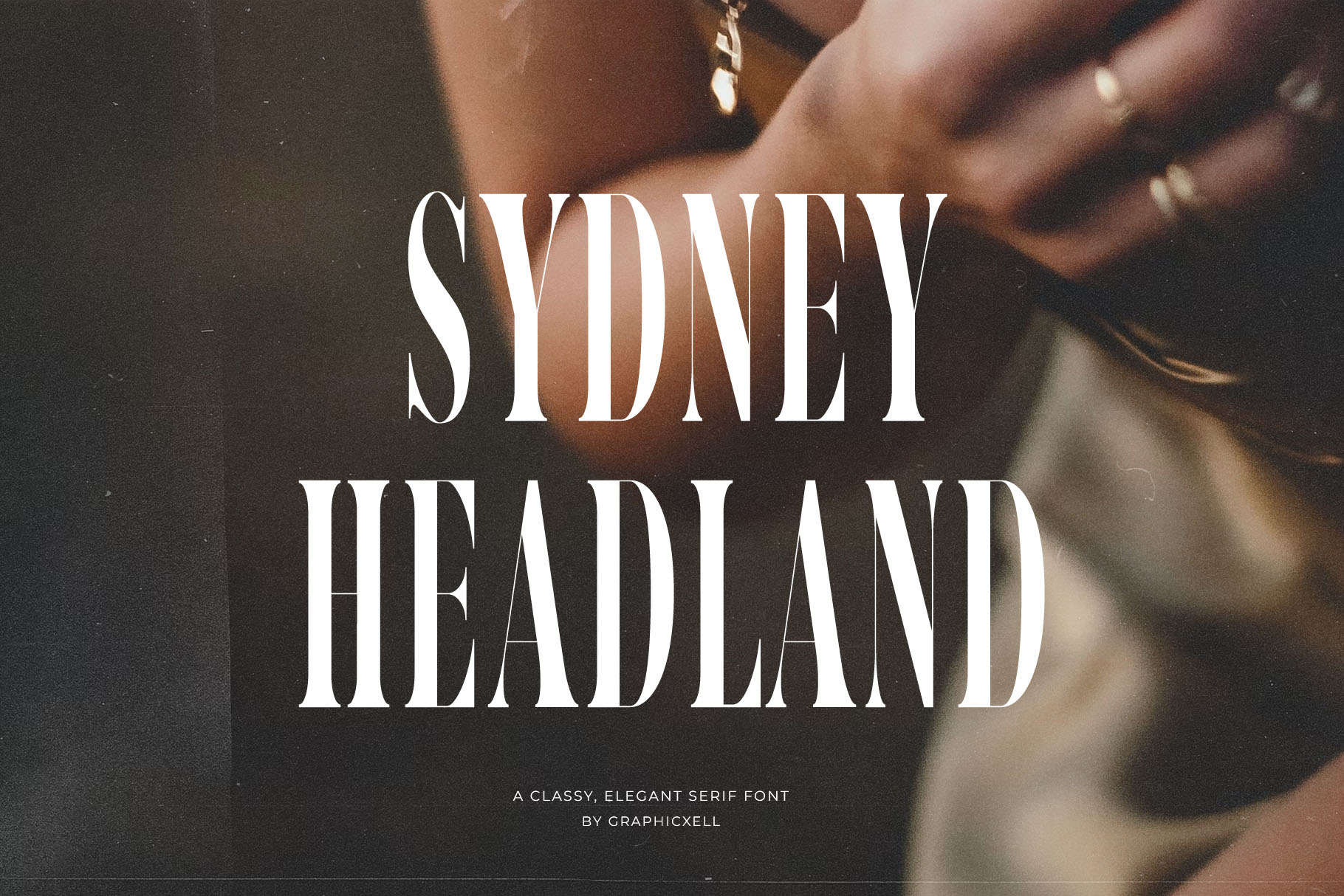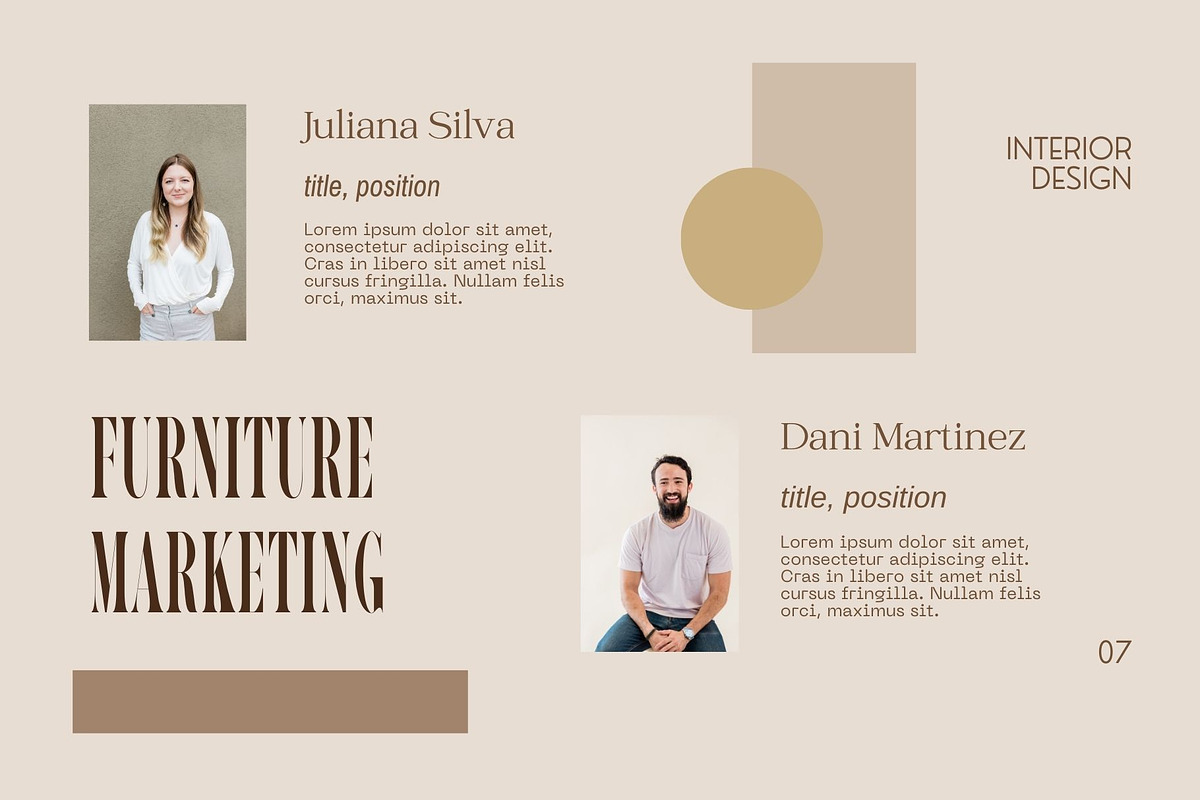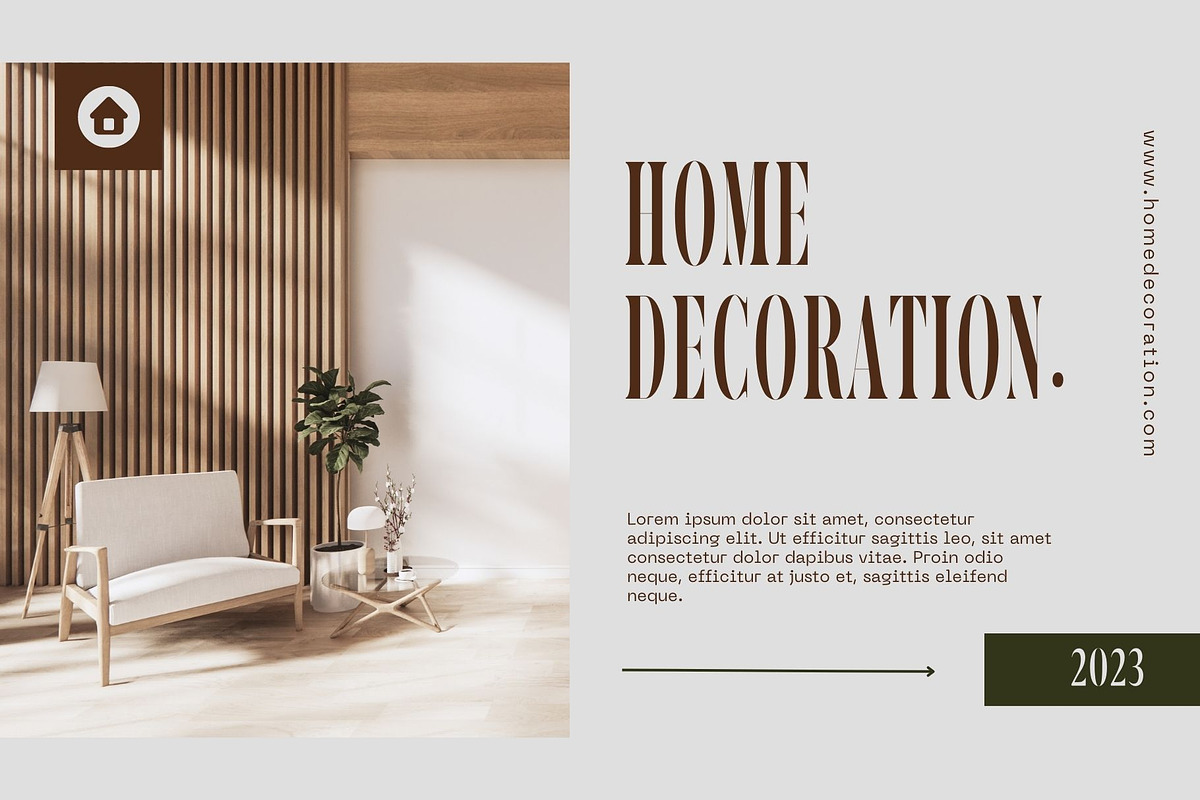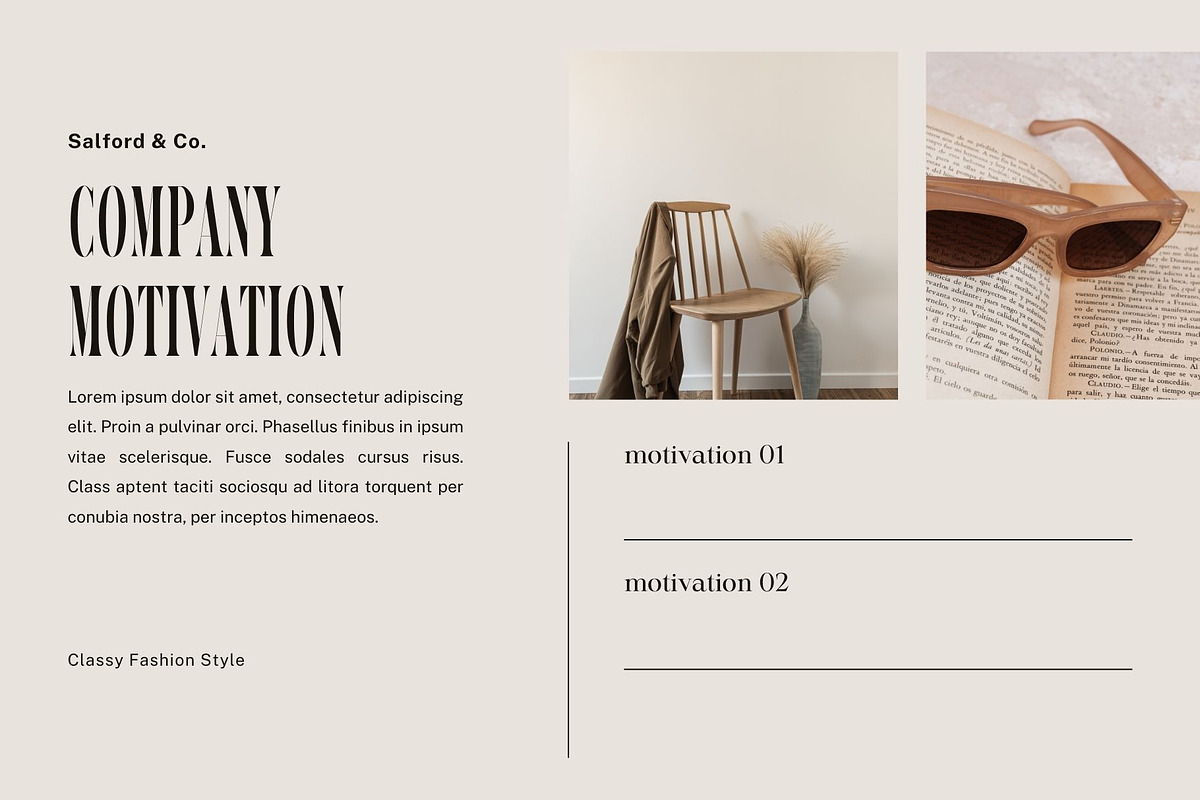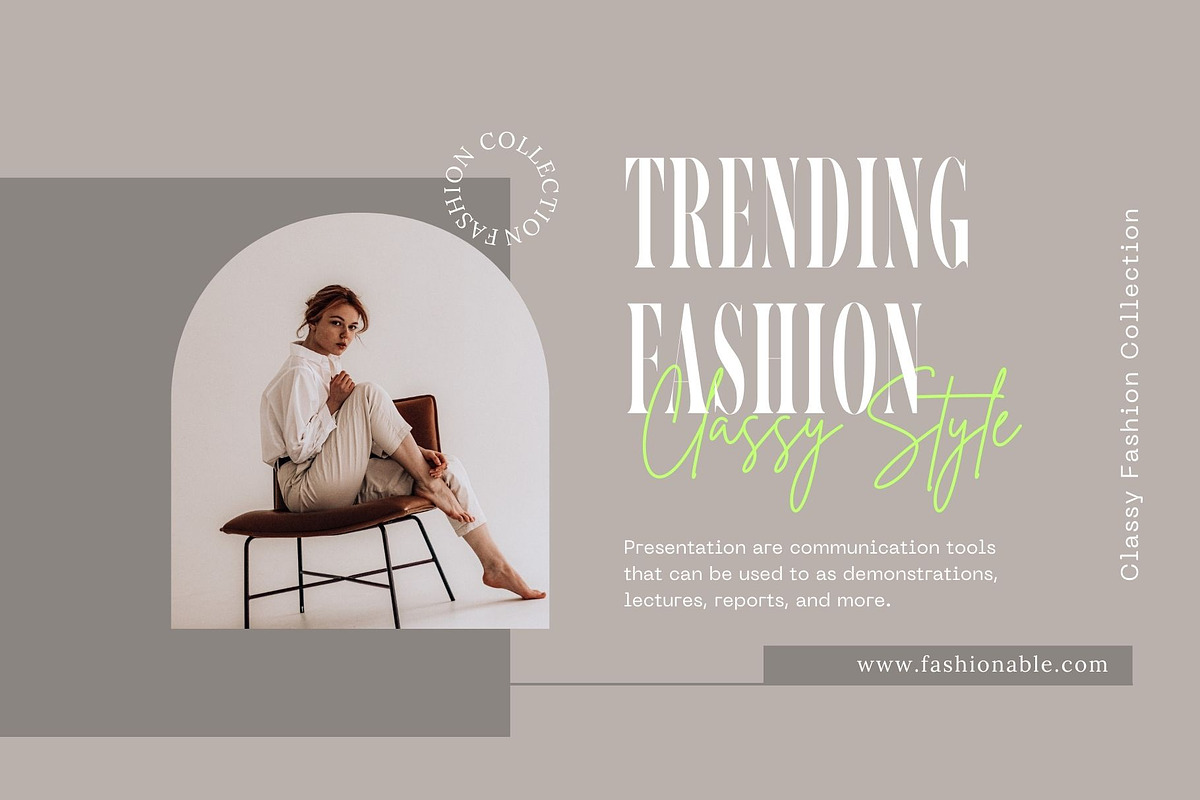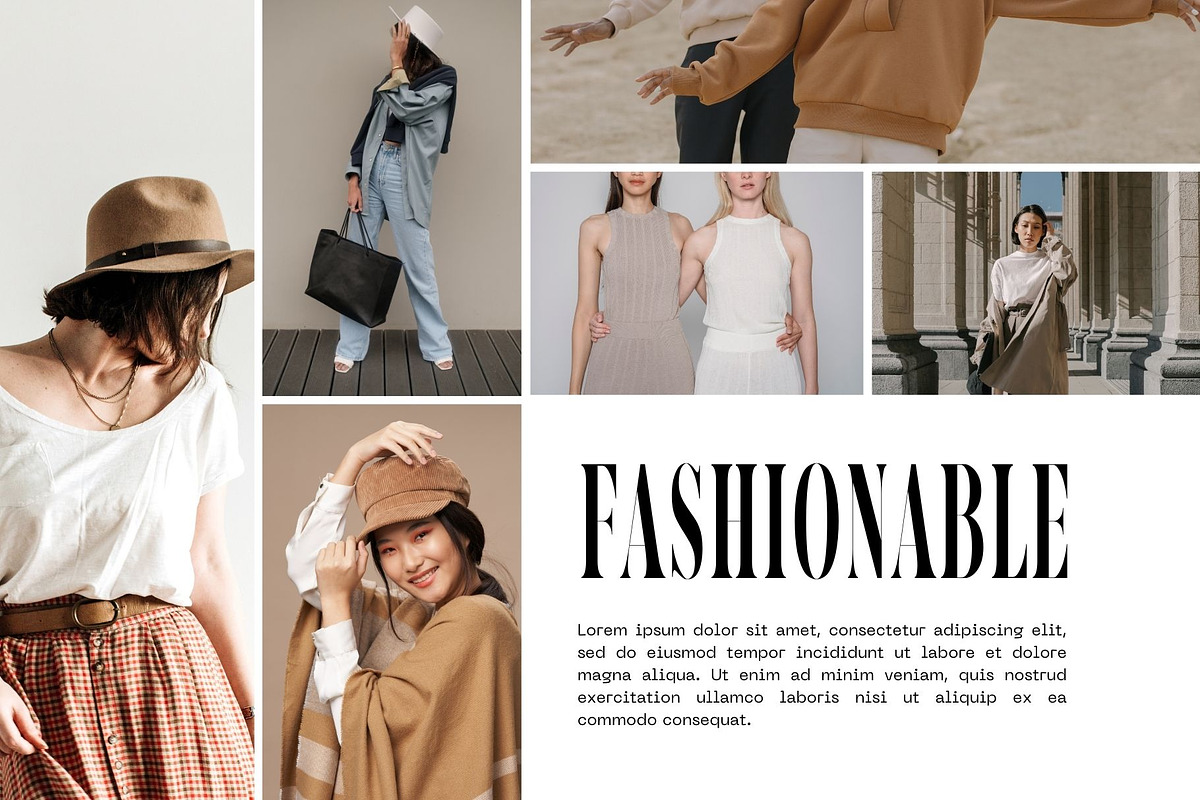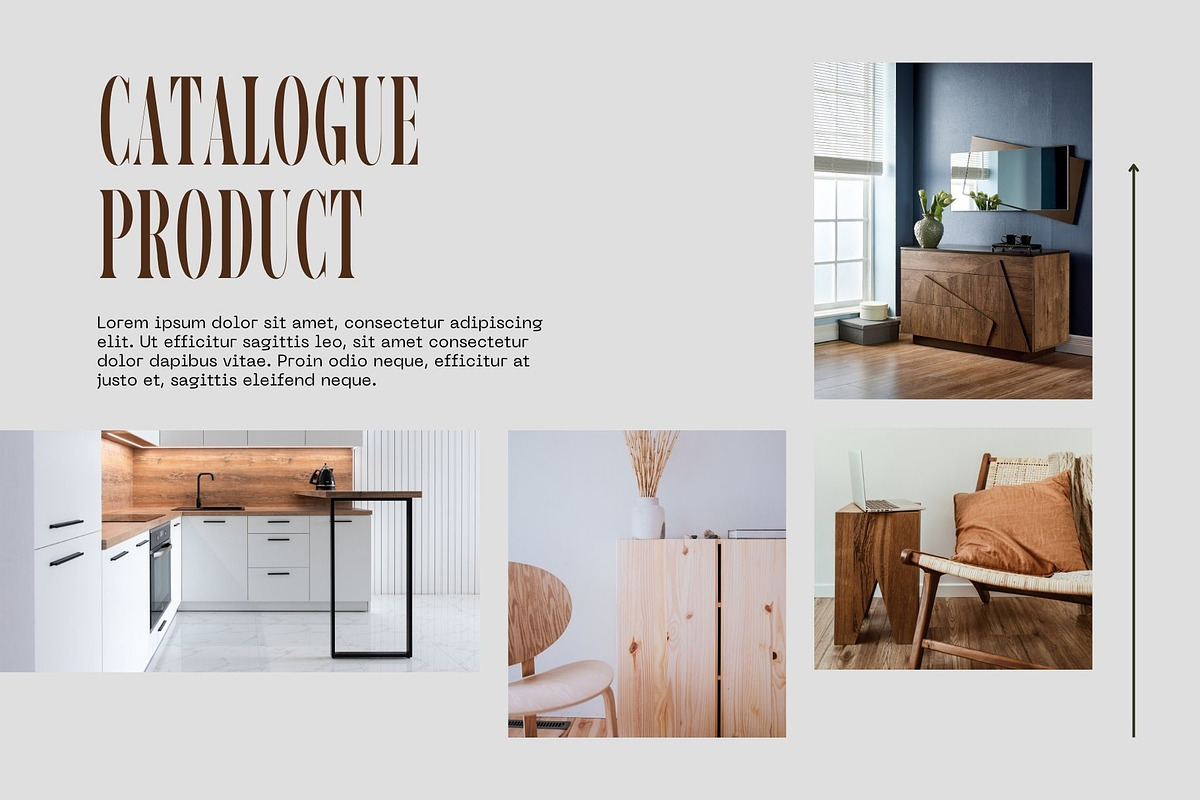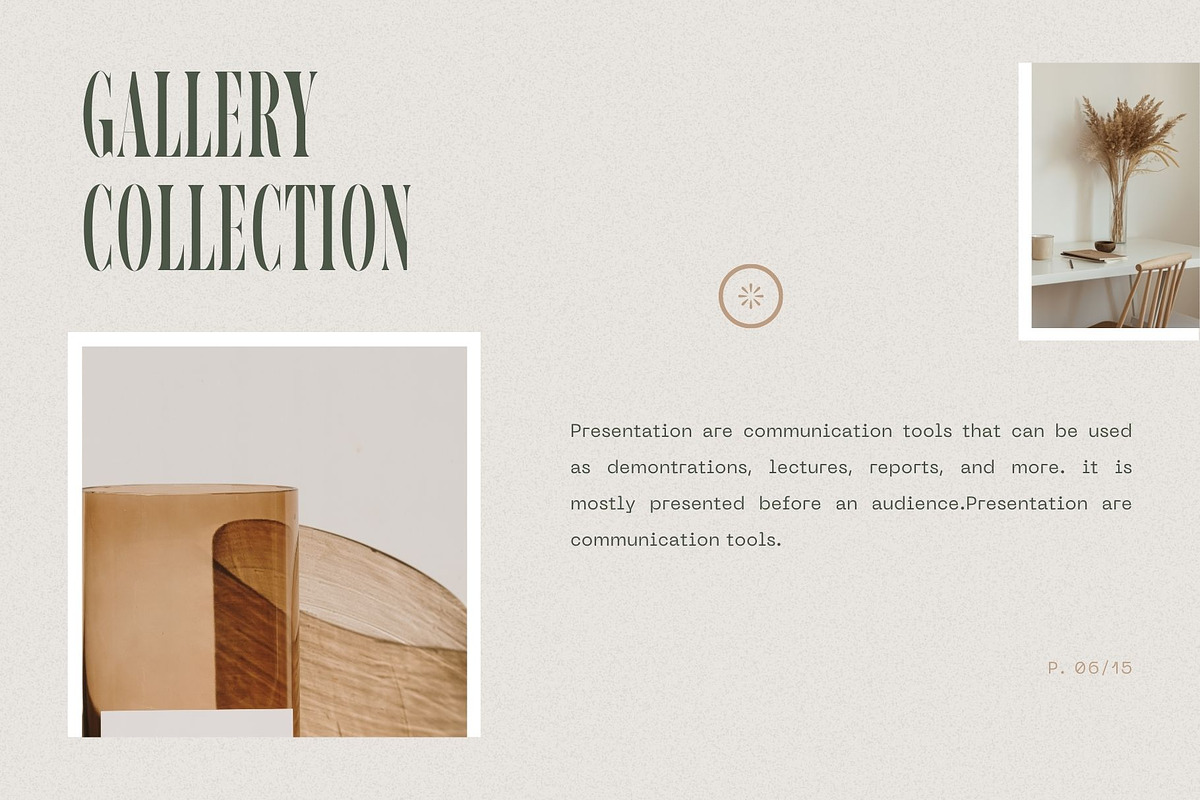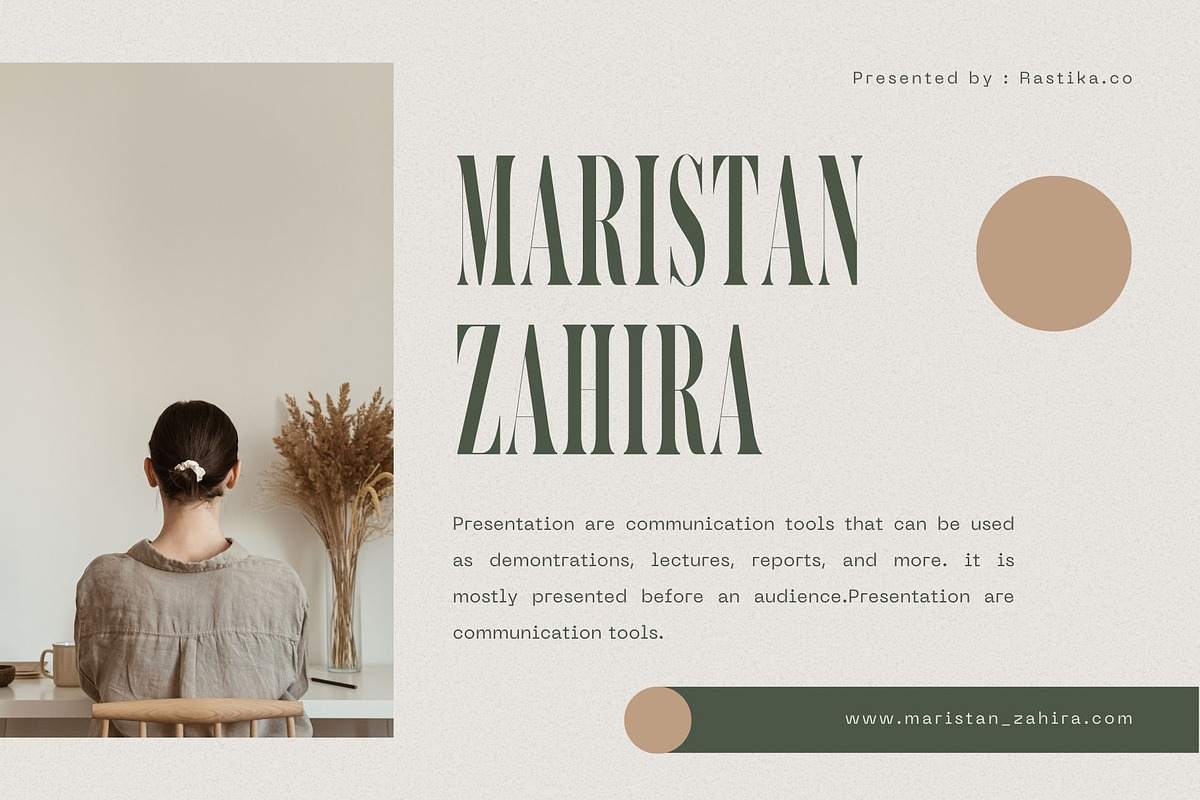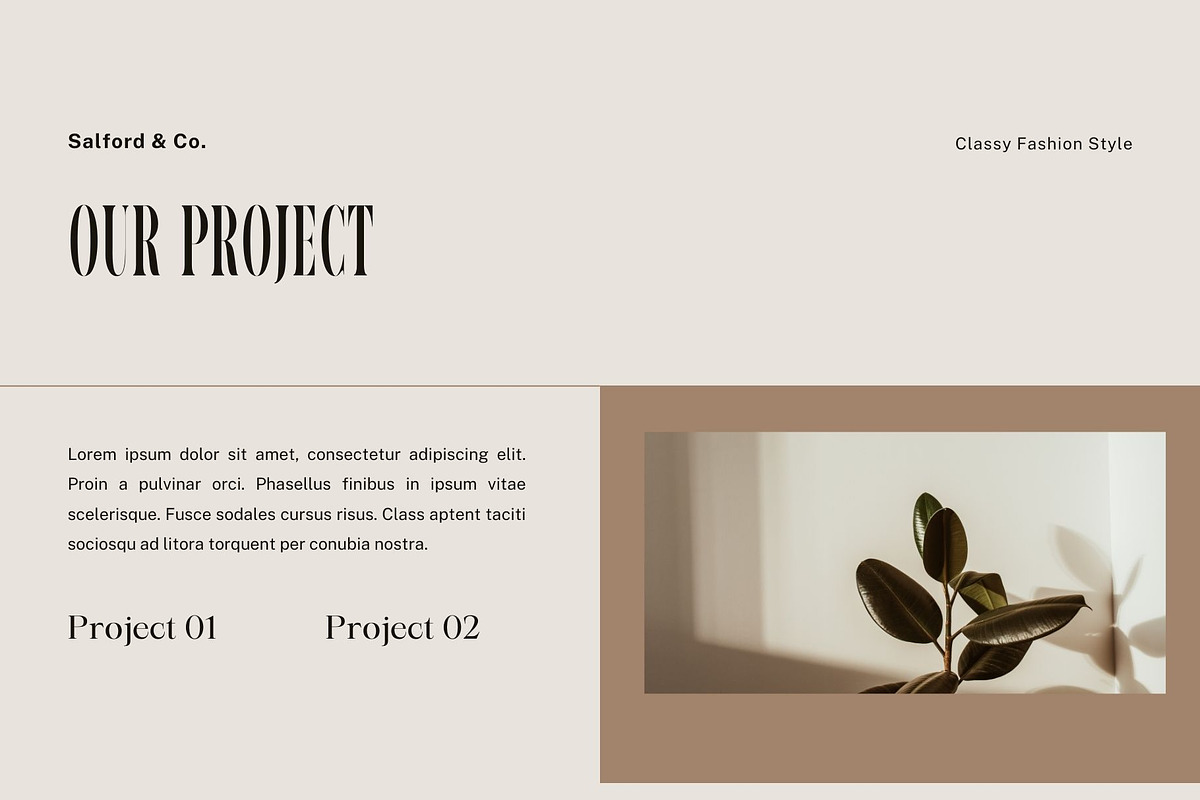
Sydney Headland Elegant Serif Font
Sydney Headland Elegant Serif Font inspired by the famous minimalist logo perfect for the purposes of designing templates, brochures, videos, advertising branding, logos, invitation, layout design, elegant crafting, beauty design and more.